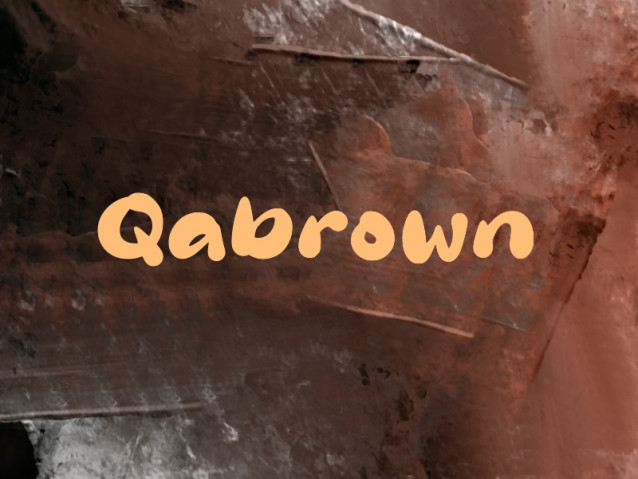
Qabrown Font
Qabrown Font is a simple and modern display font suitable for quotes, logos, headings, titles, and many more. Use it on any of your creative projects, and your designs will become outstanding!